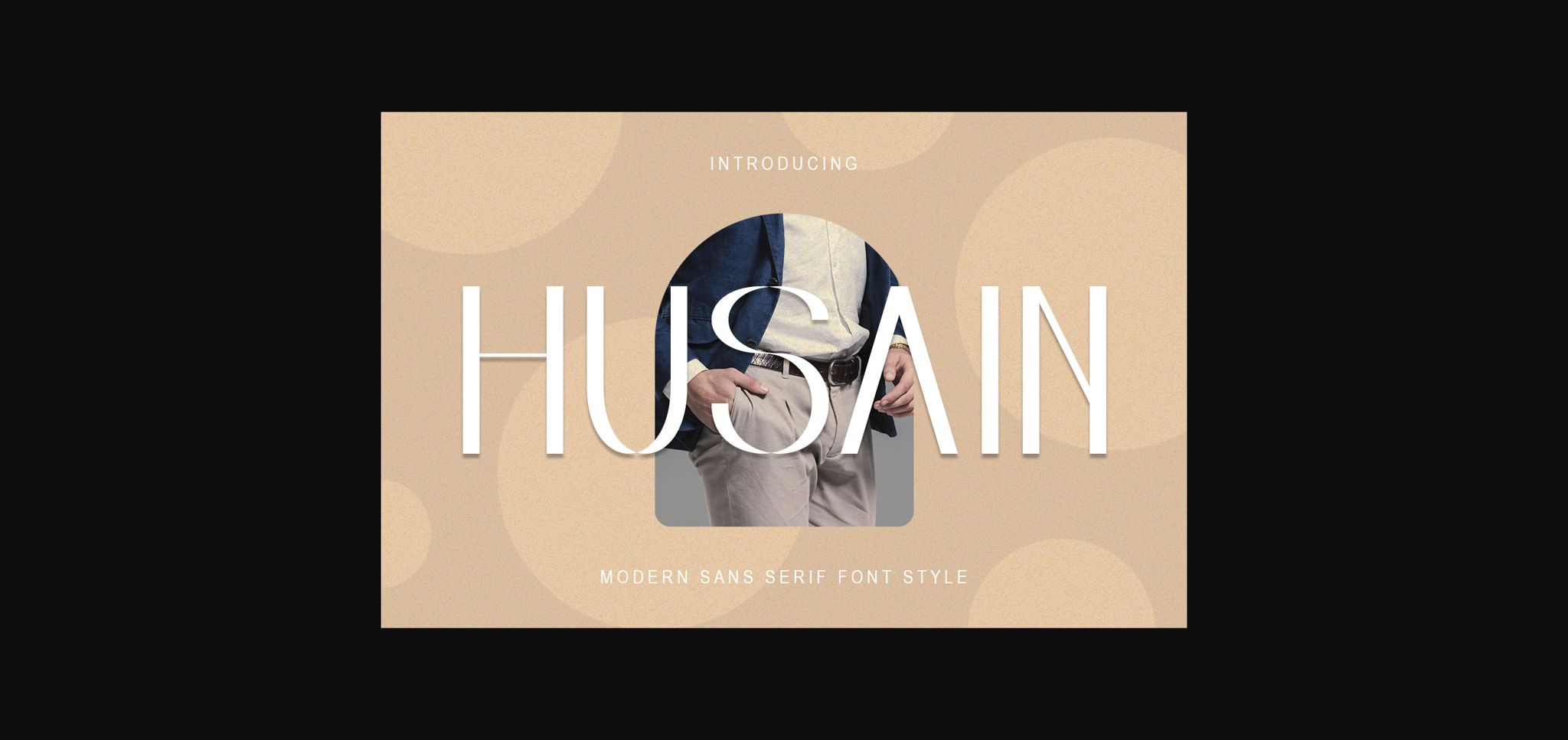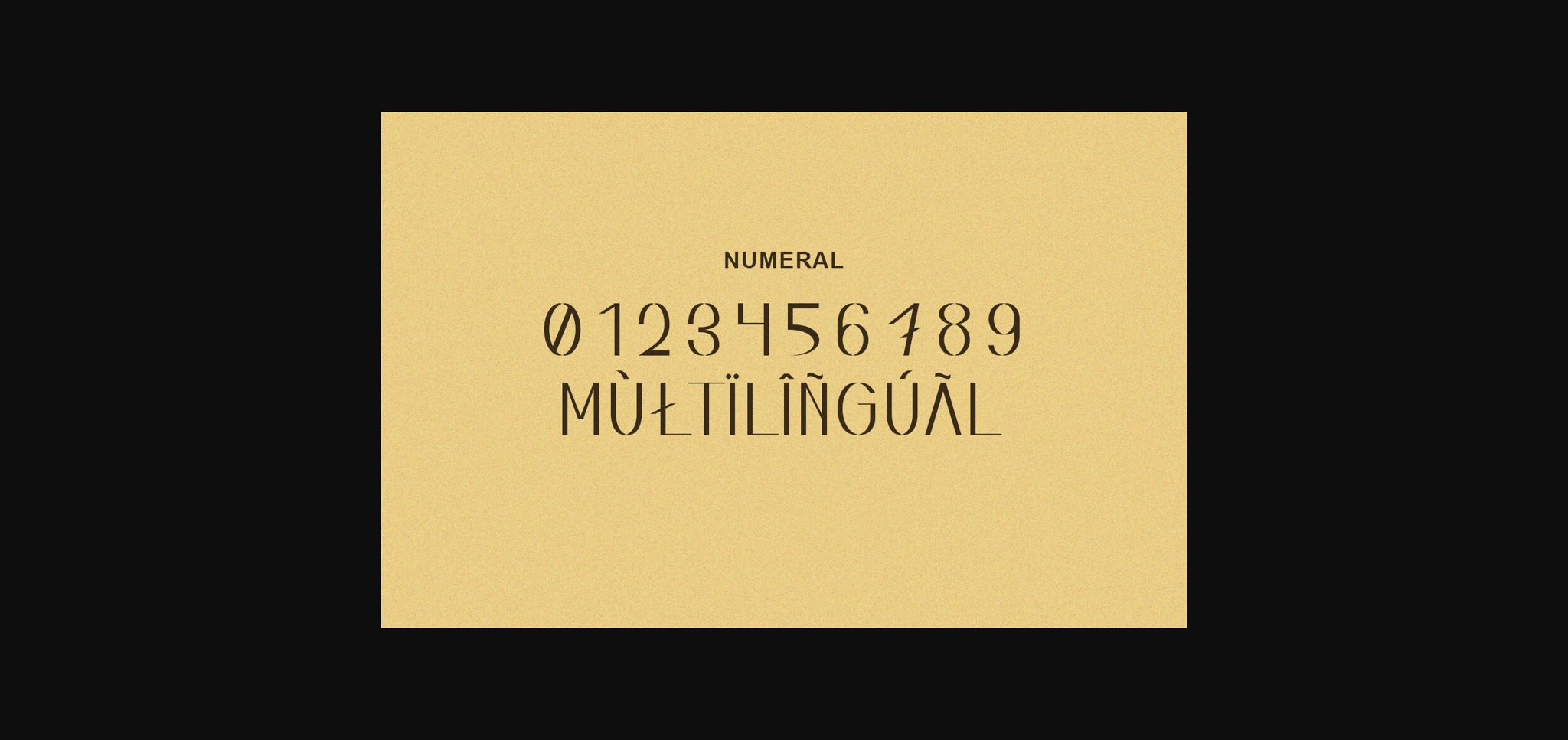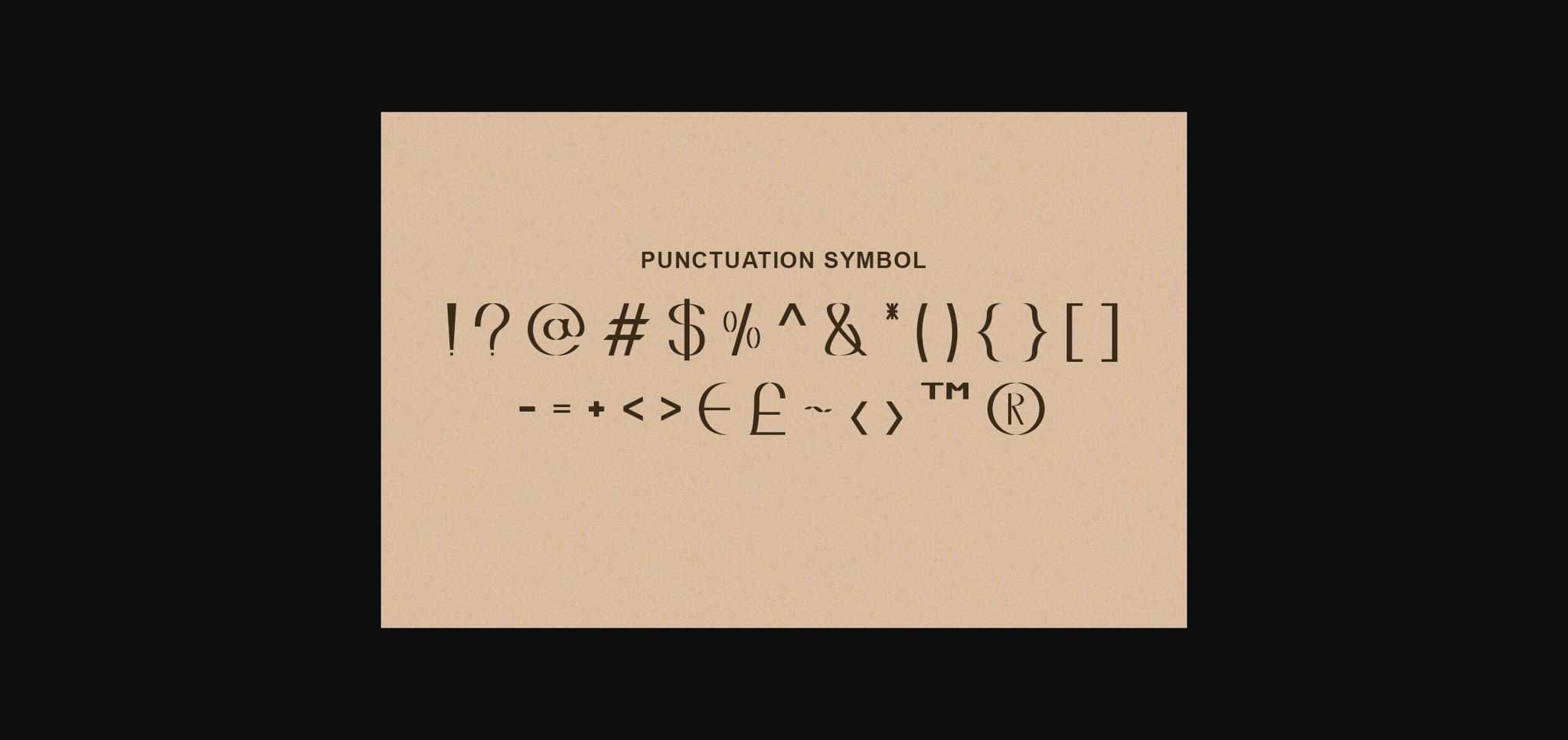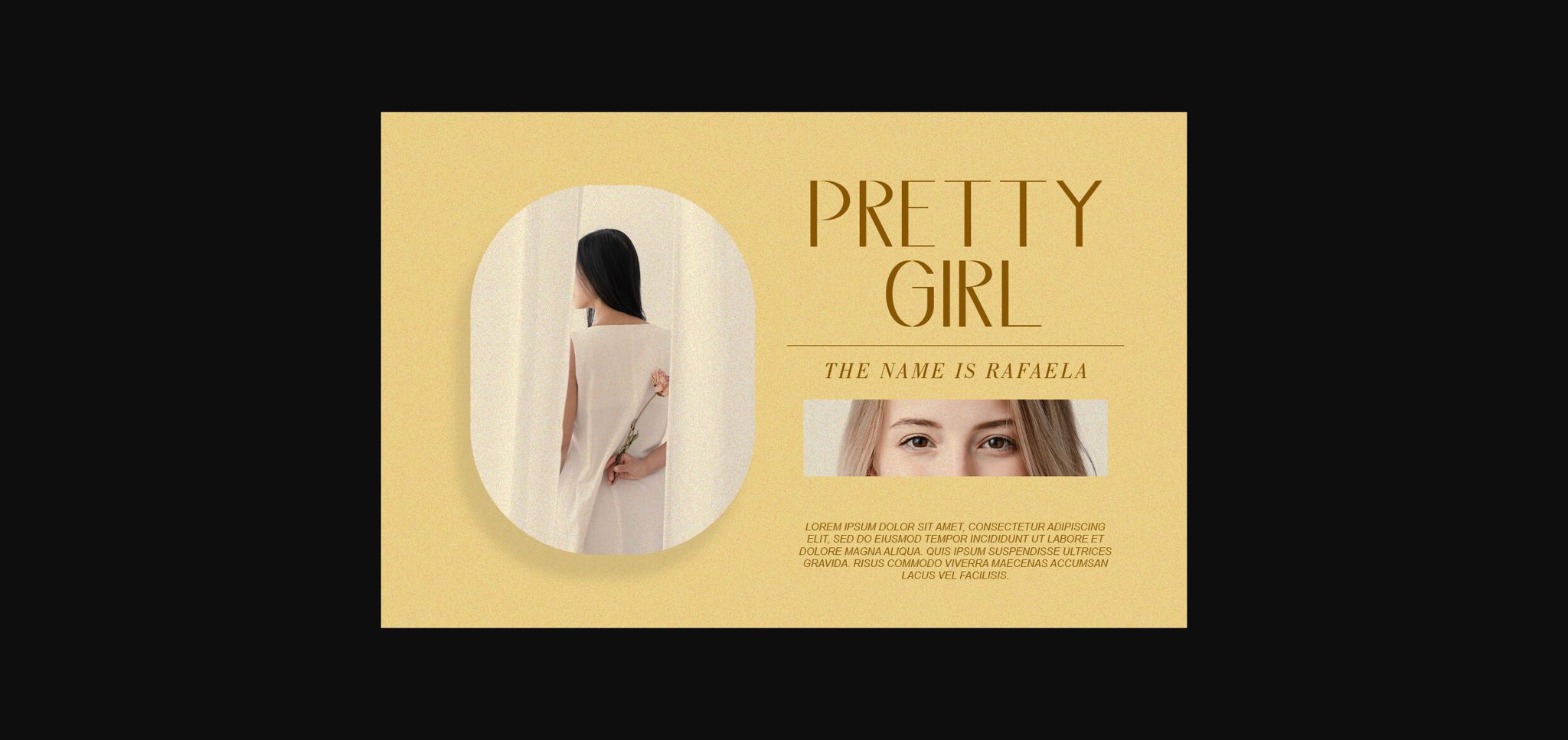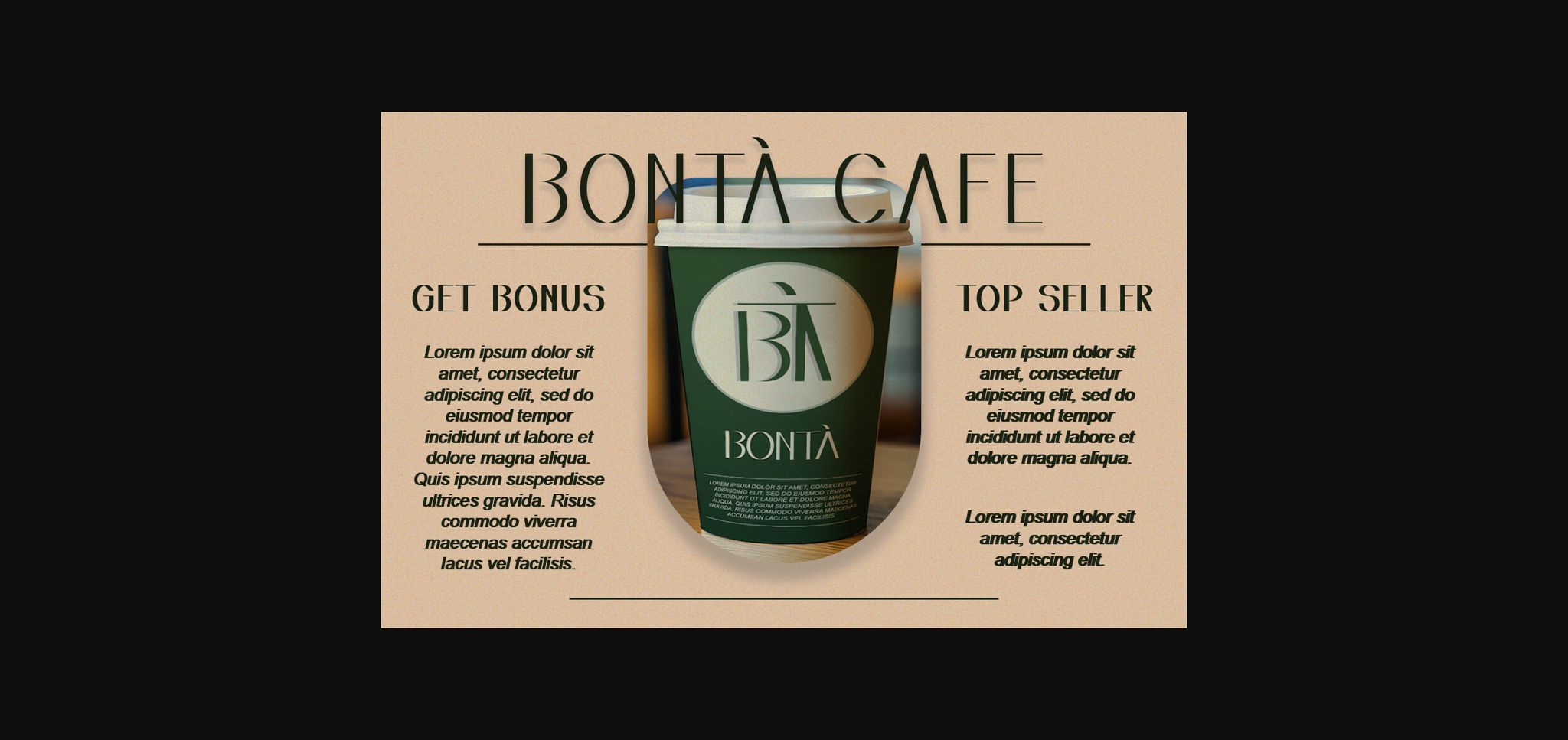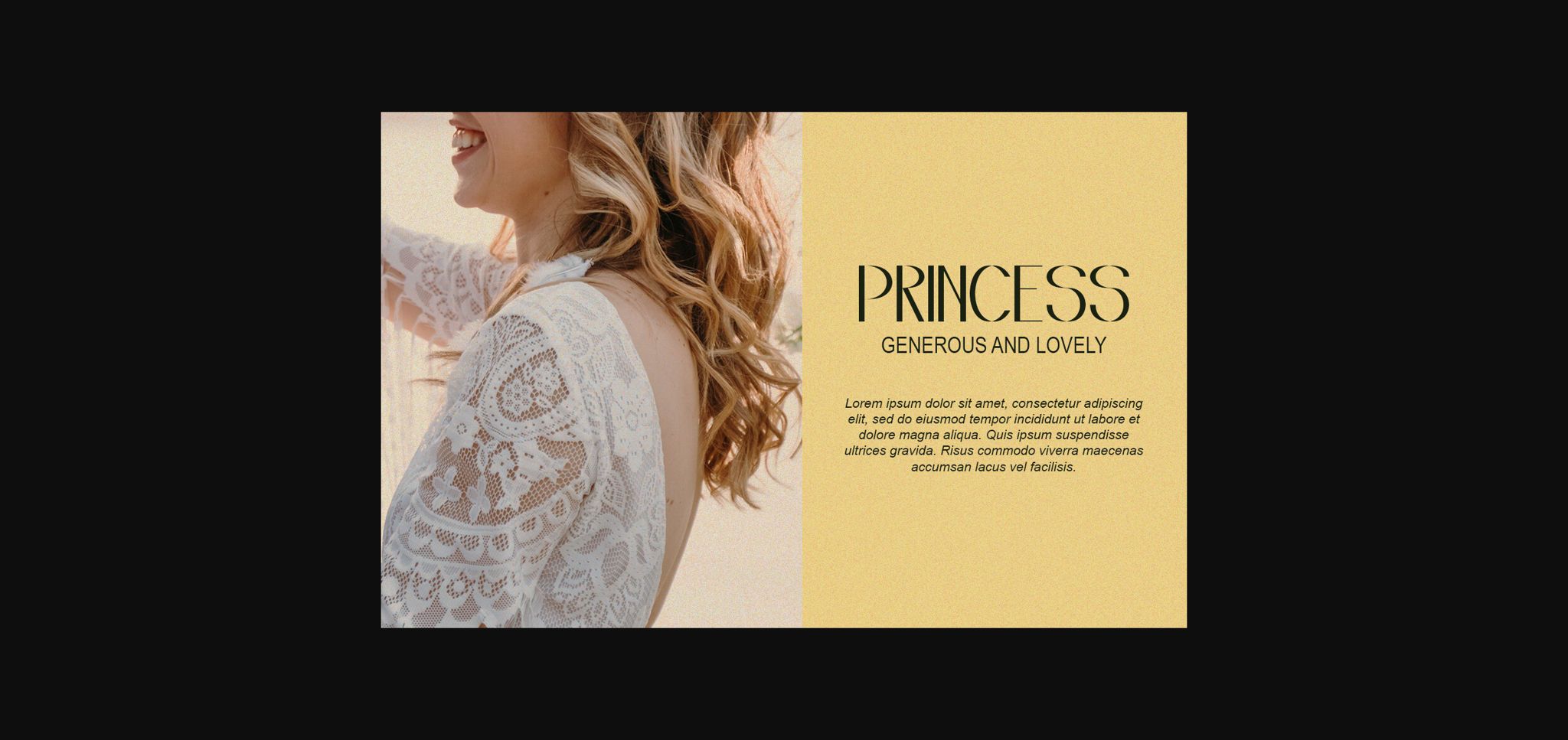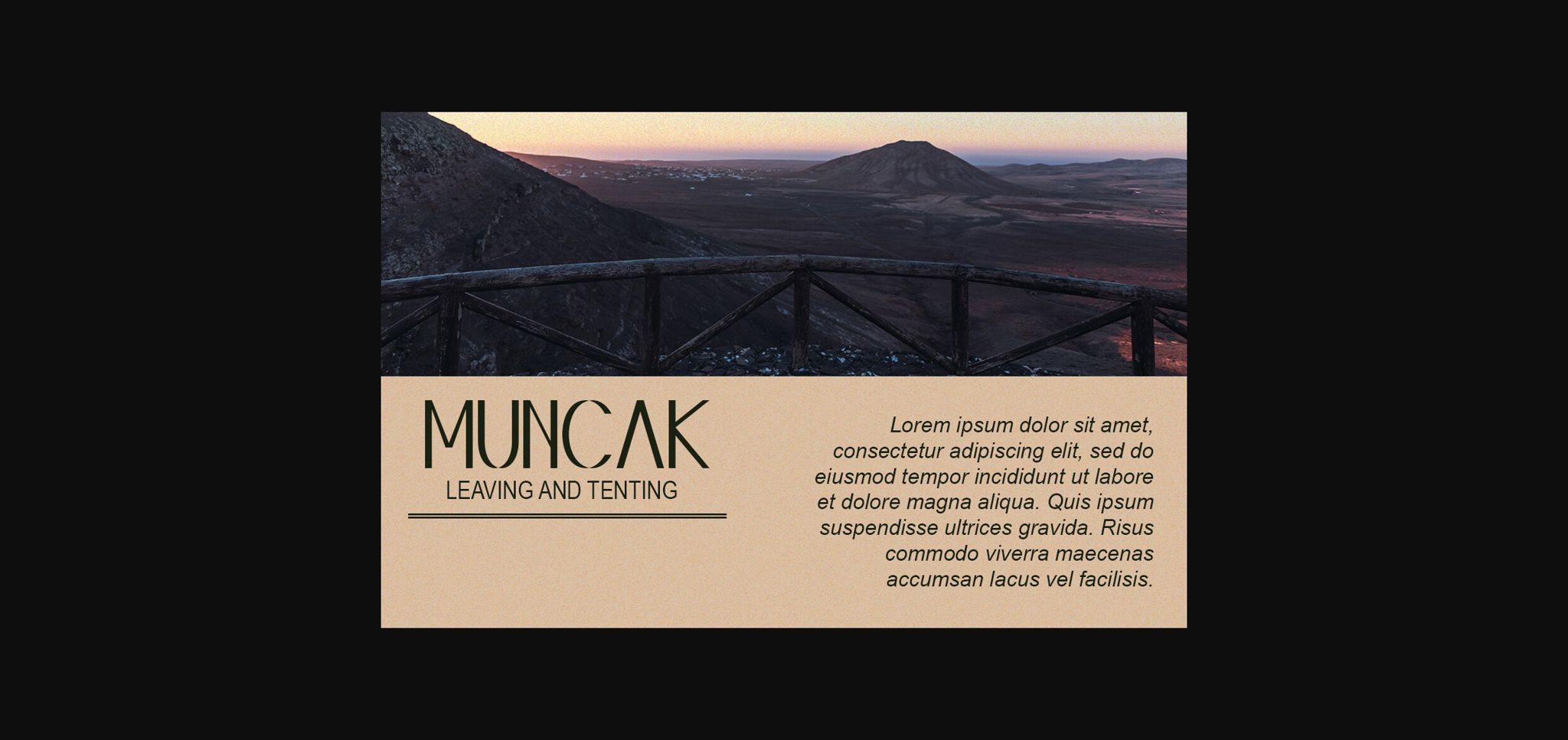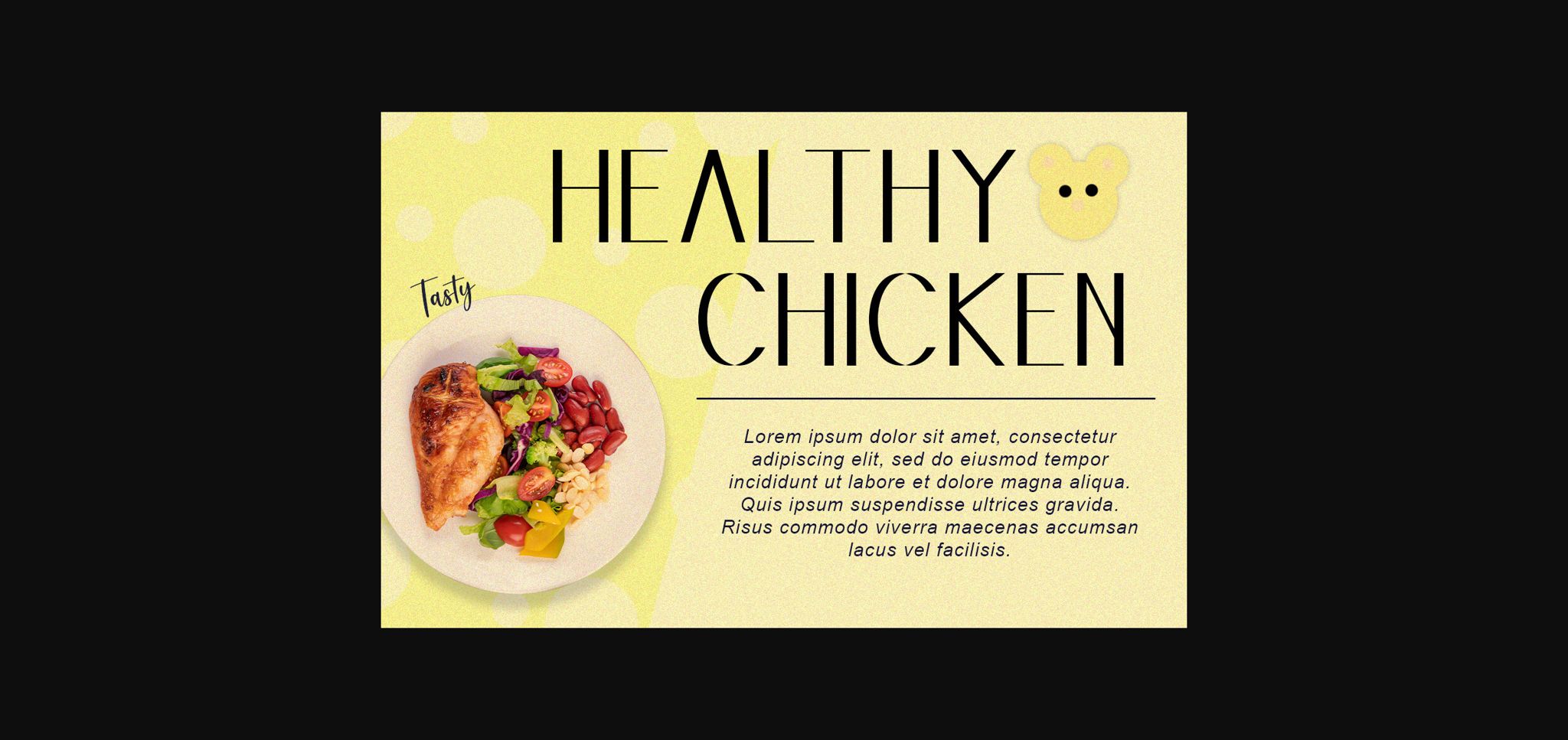
About Husain Font
Husain is a stylish sans-serif font characterized by its clean lines and modern aesthetic. With a balanced design and subtle geometric elements, it exudes sophistication and versatility. Husain is perfect for a wide range of design projects, from branding and advertising to editorial and web design.